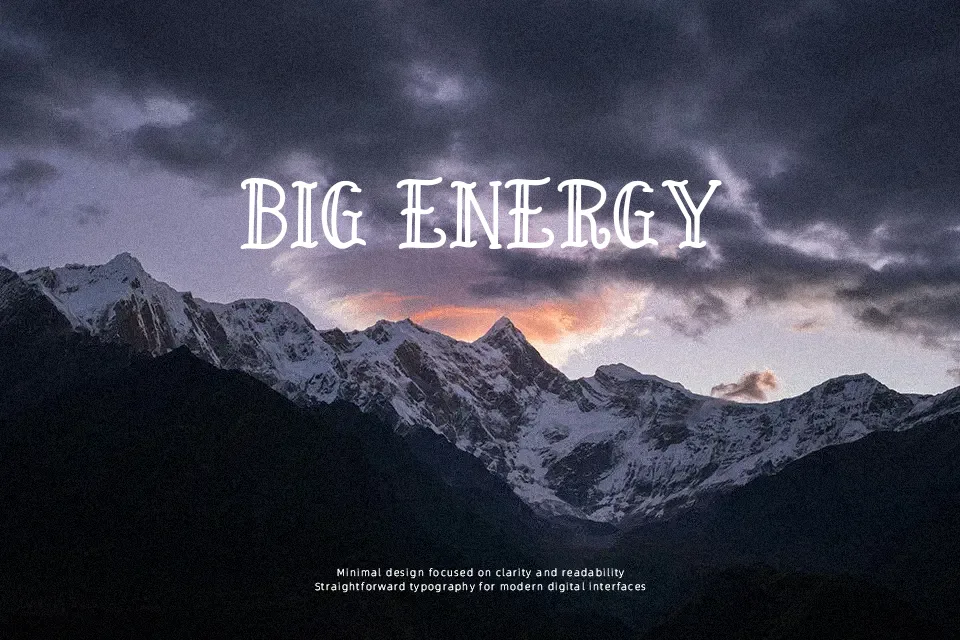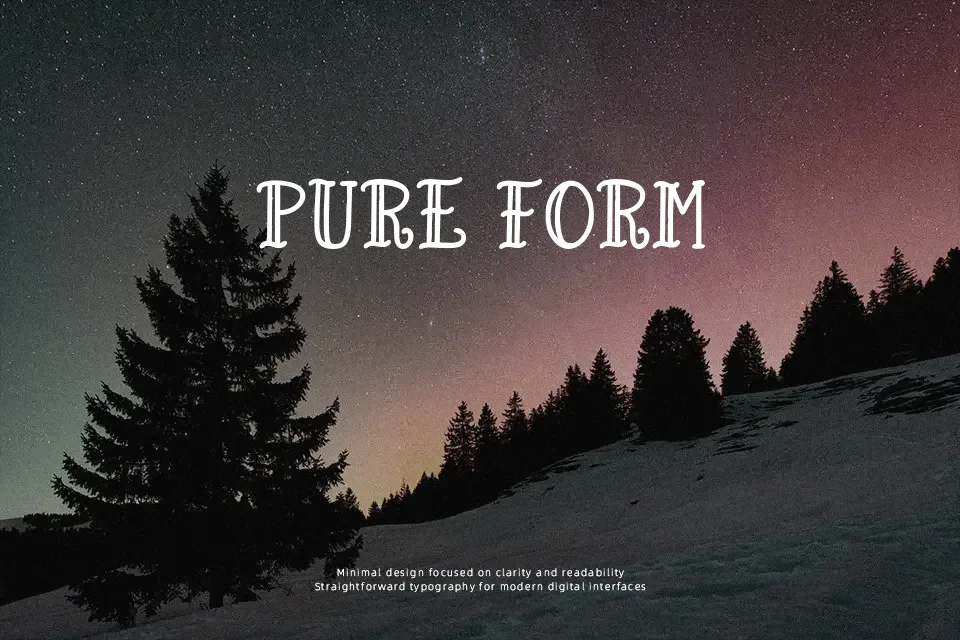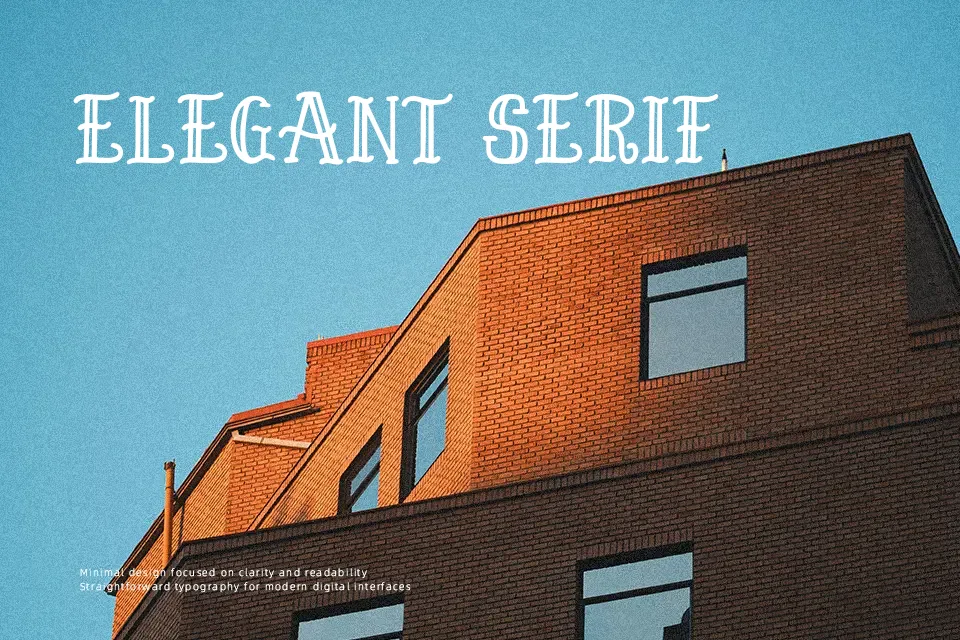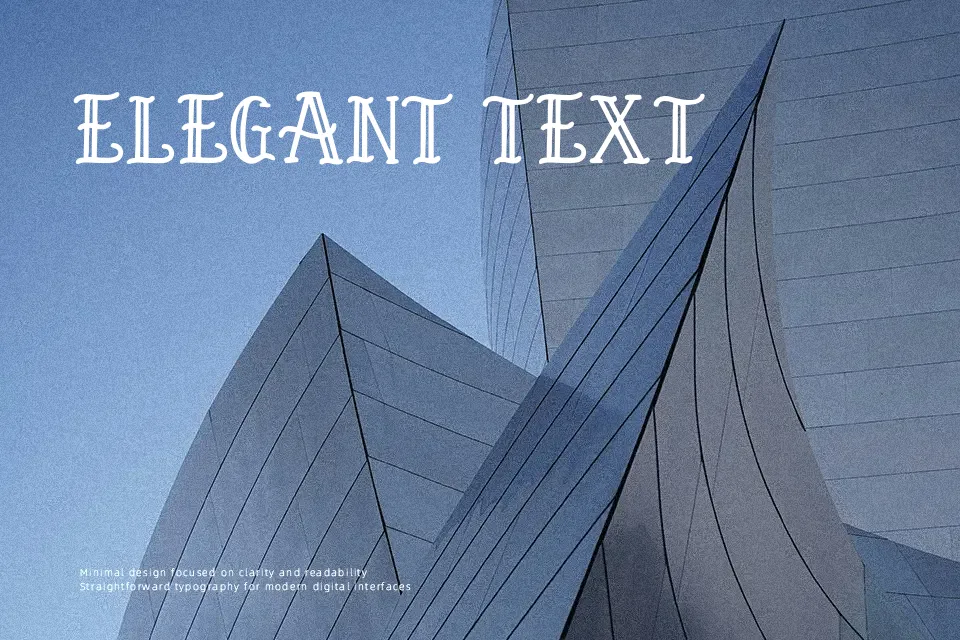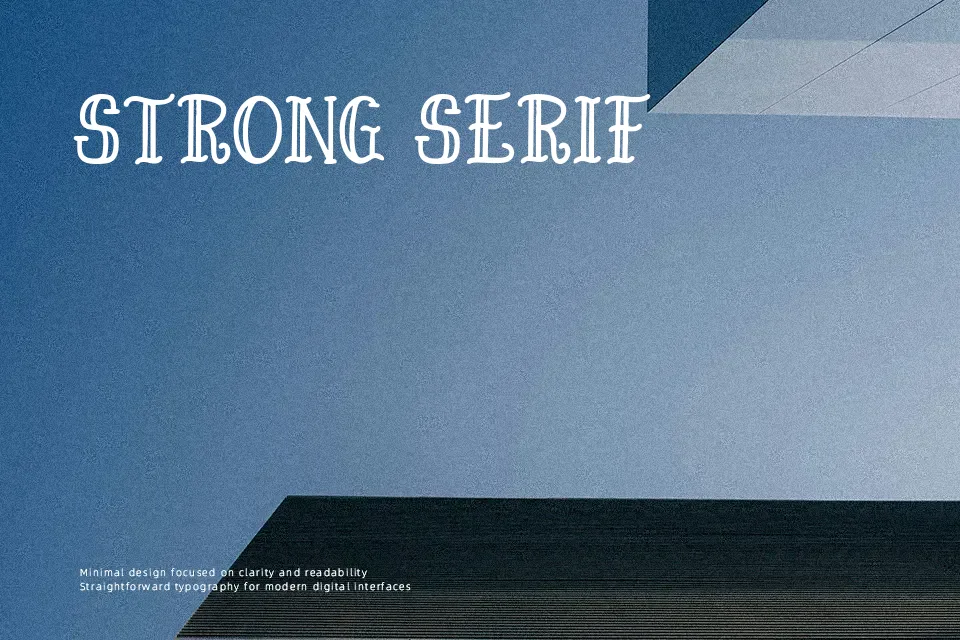
Tattoo God Font
Tattoo God Font introduces a striking decorative display design built with sharp terminals, heavy stroke contrast, and ornate vintage flourishes. The sturdy uppercase letterforms command attention through compact letter spacing and balanced proportions that preserve structural definition across large headlines. While the dense aesthetic lends commanding energy to event graphics and merchandise branding, the intricate detailing becomes less effective in compact layouts. Intricate contour lines and tight inner counters significantly impair legibility across continuous reading blocks and small technical captions.
vintage apparel graphics,music festival posters,merchandise packaging,headline banners
long paragraph text,mobile user interfaces,dense editorial layouts,technical manuals
Perfect for branding, headline, and packaging, with a artistic and decorative style.